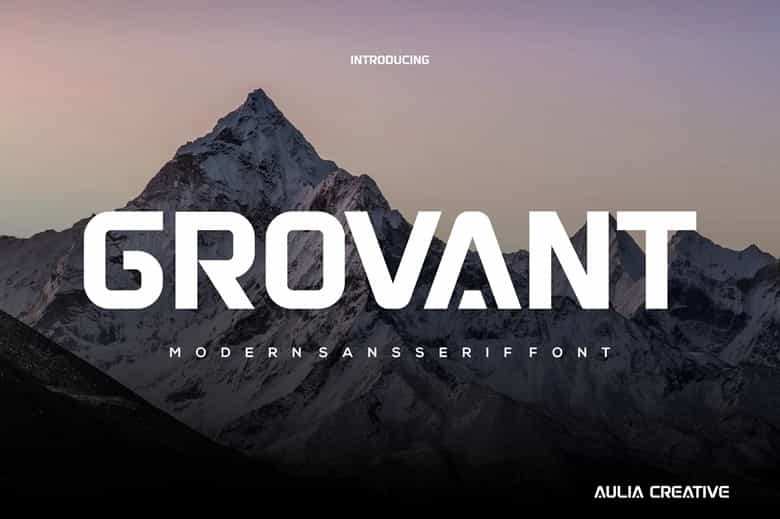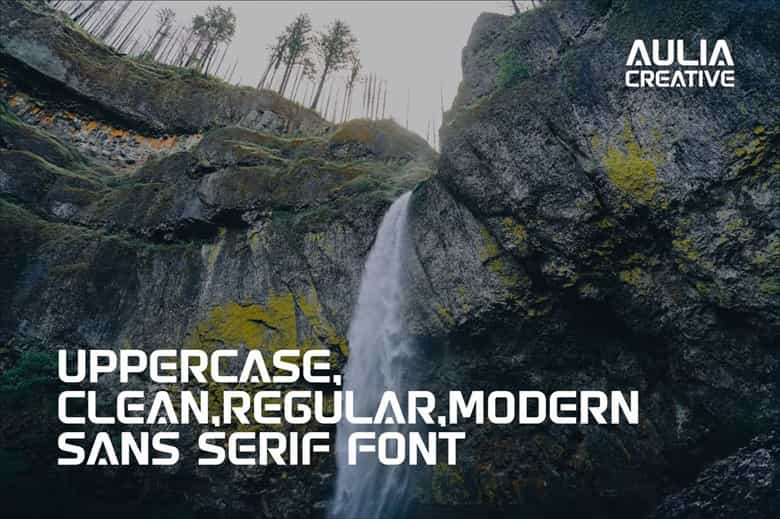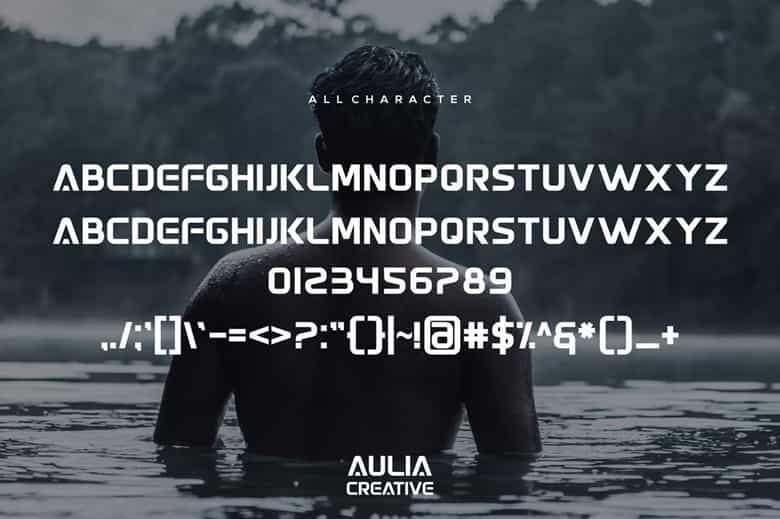
Discover Grovant Font, part of the Sans Serif Display collection—a versatile and unique font perfect for adding a personal touch to your projects. Download it for free and enjoy crafting designs with style, from invitations to social media posts. This font is available exclusively for personal use, giving you the freedom to create without limits. Unlock your creativity with Grovant Font today!
Grovant is an authentic logo sans serif font. It can be easily associated with an incredibly large number of projects, so feel free to use it in any of your creative concepts and see how it works for them!